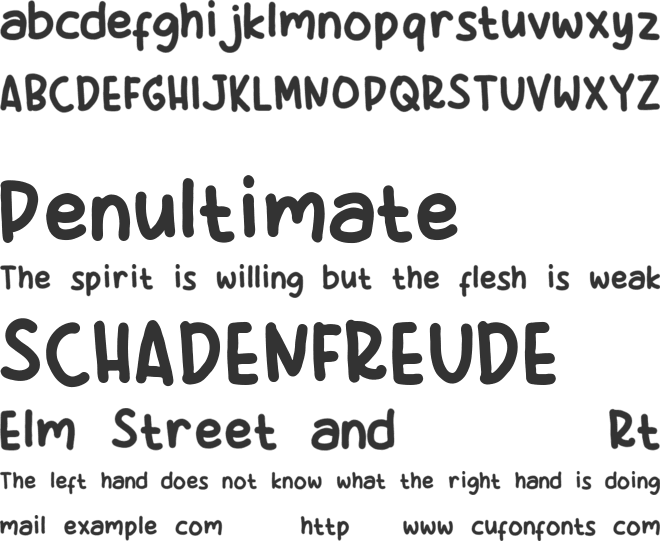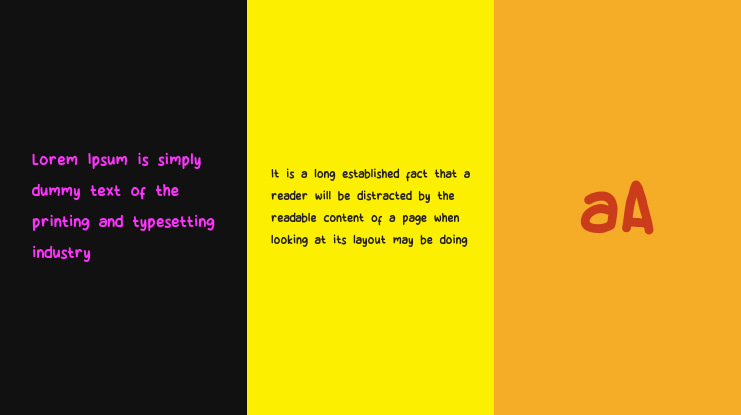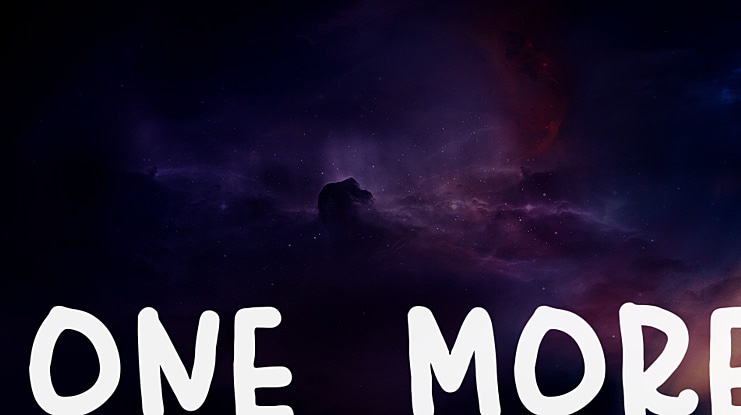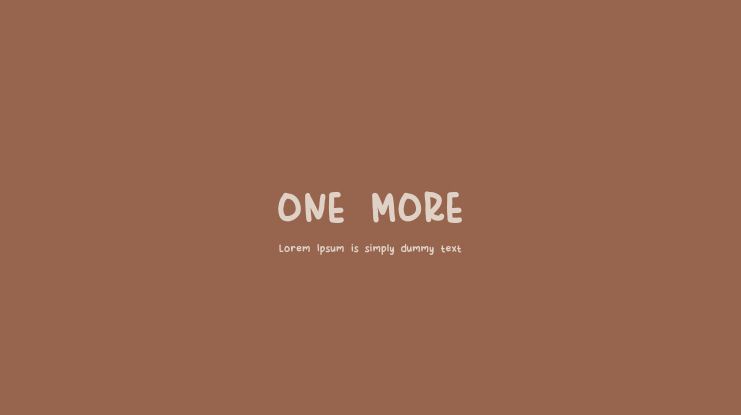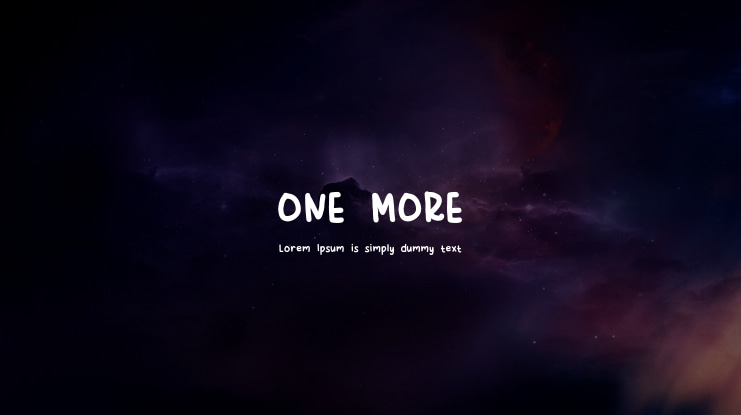
ONE MORE Font
One More is a simple and natural display font. It embodies authenticity and is the perfect choice for any children activity or school project.ha